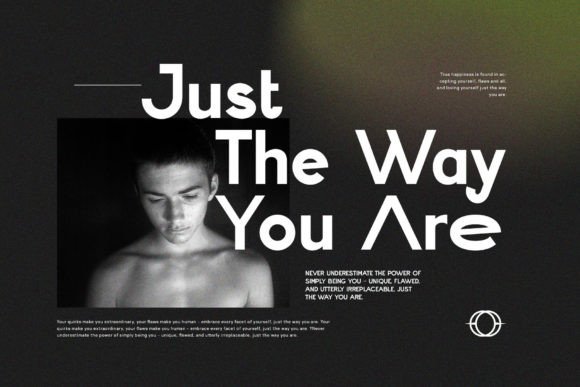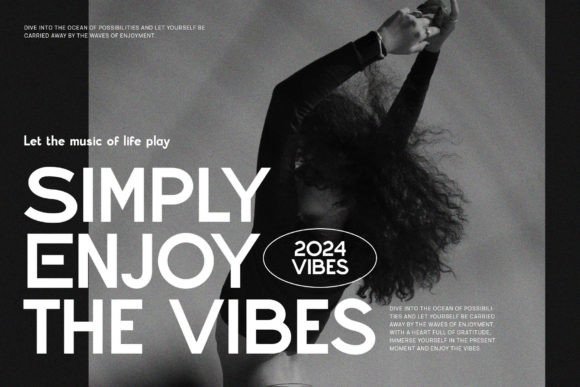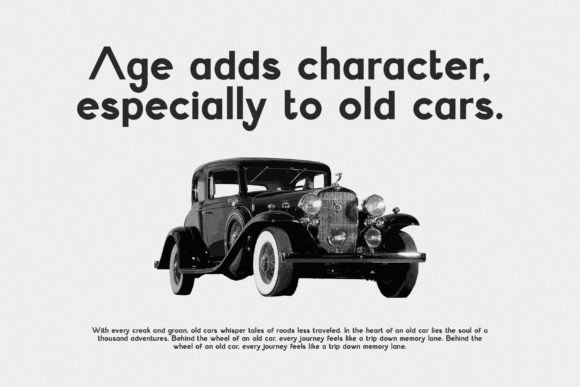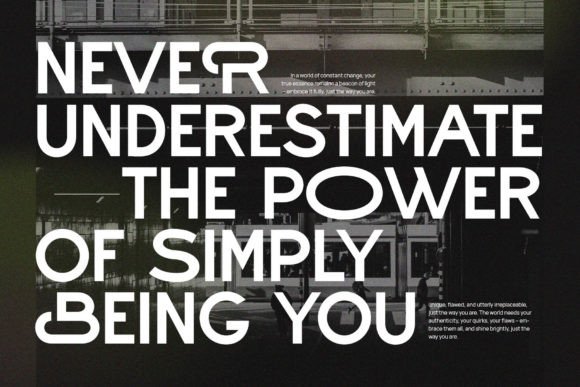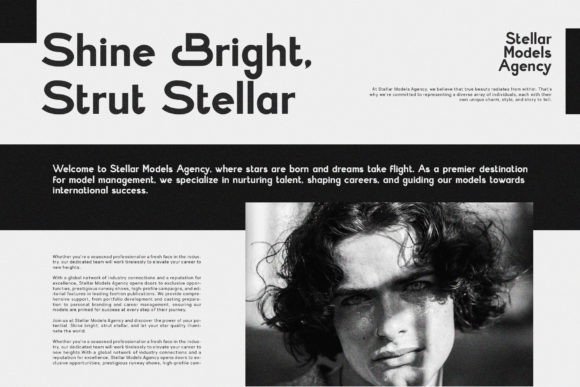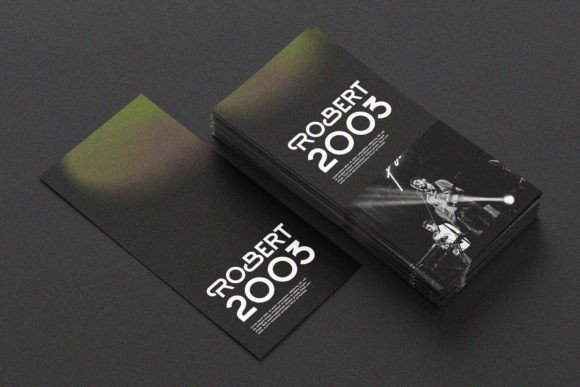
Introduction to Rimba Font Font
Fonts play a crucial role in design, and the Rimba Font font is a typeface that brings both character and versatility to any project. Whether you’re working on a branding project, a website, or a print design, the Rimba Font font offers a unique style that can elevate your work.
Rimba Sans Serif Font This typeface encapsulates a rhythm that is symmetrical and balanced due to a unique mix of different sources of inspiration.
Proportions are precisely adjusted with subtle contours and subtle contrasts Rimba Font is perfect for brochures, videos, advertising branding, logos, magazines, layout designs, posters, post templates, games, and others.
Key Features of Rimba Font Font
Why Choose Rimba Font Font?
The Rimba Font font is more than just a typeface – it’s a design tool that helps you communicate your message with style and clarity. Its unique character set and versatile design make it suitable for a wide range of applications, from elegant invitations to bold headlines.
With its carefully crafted letterforms and balanced proportions, the Rimba Font font ensures readability and visual appeal across all mediums.
What makes Rimba Font font special?
The Rimba Font font stands out with its unique design, exceptional readability, and versatility across various design applications.